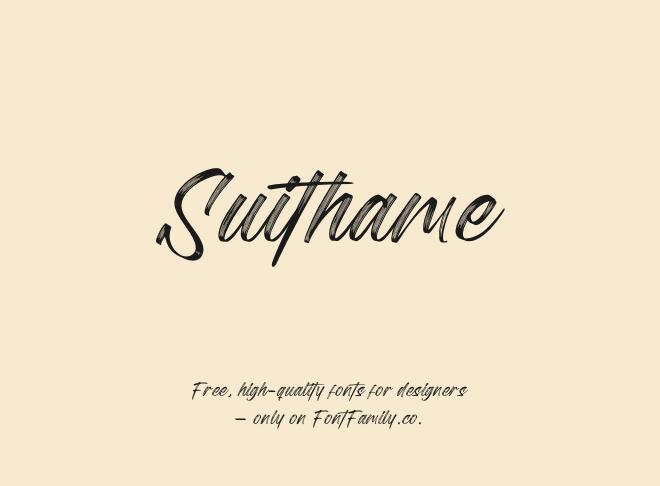
Suithame Font
Suithame Font is a unique and elegant handwritten typeface with a modern twist. This font, designed by Creative Foundry, offers a perfect balance between fluidity and structure, making it an ideal choice for a variety of design projects. From logos to invitations, branding to social media posts, Suithame Font brings a touch of sophistication and a contemporary vibe to your designs. Its clean lines and smooth curves are reminiscent of popular modern typefaces, yet it stands out with its distinct style and character. Suithame Font's versatility makes it a staple in any designer's toolkit. Its unique design elements make it a great choice for those looking to add a touch of elegance and modernity to their work.